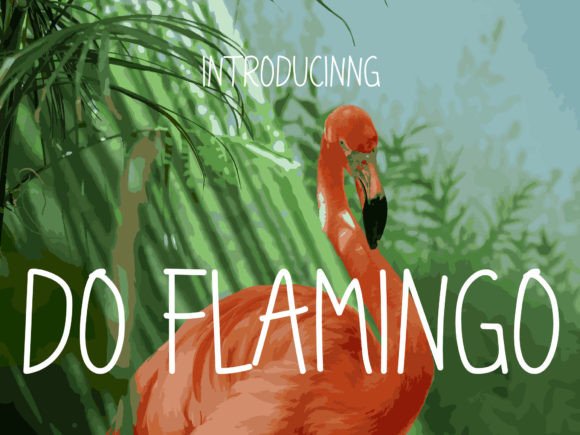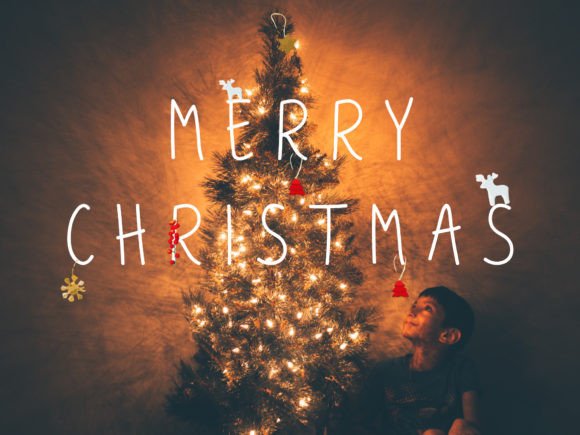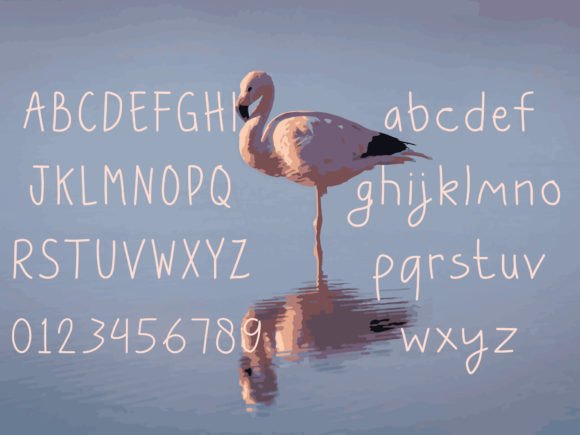
About Do Flamingo Font
Do Flamingo Font is a fun and quirky handwritten typeface designed to bring personality and creativity to your projects. Its playful style and unique letterforms make it a great choice for adding a handcrafted, artistic touch. Whether you’re working on crafts, greeting cards, branding, or social media graphics, Do Flamingo injects a lively, distinctive flair that makes your designs stand out.
Perfect for Creative and Playful Projects
Do Flamingo’s lively and whimsical style fits perfectly with:
Craft projects and DIY designs
Handmade product packaging
Greeting cards and invitations
Social media posts and blog graphics
Branding for creative and quirky businesses
Its distinct personality makes your work feel fun, fresh, and memorable.
Why Choose Do Flamingo Font?
This font stands out because of its:
Playful, quirky letterforms that add character
Balanced design with good readability
Versatility across both print and digital applications
These features make Do Flamingo a favorite among designers and crafters looking for a unique handwritten style.
Bring Fun and Whimsy to Your Designs
Typography shapes the mood of your design, and Do Flamingo adds a playful, joyful tone. Whether for crafting, event invitations, or branding, it helps you express creativity and uniqueness with every letter.
Versatile Uses of Do Flamingo Font
Do Flamingo works well for various projects such as:
Handmade crafts and product labels
Digital and print greeting cards
Social media content and digital marketing
Event flyers and posters
Branding for creative and unconventional businesses
Its quirky charm is sure to make your designs lively and engaging.
In summary, Do Flamingo Font is a fun and quirky handwritten script that brings personality and creativity to any project. It’s perfect for crafts, branding, and playful design work. Add Do Flamingo to your font collection and enjoy how it brightens your creative ideas.